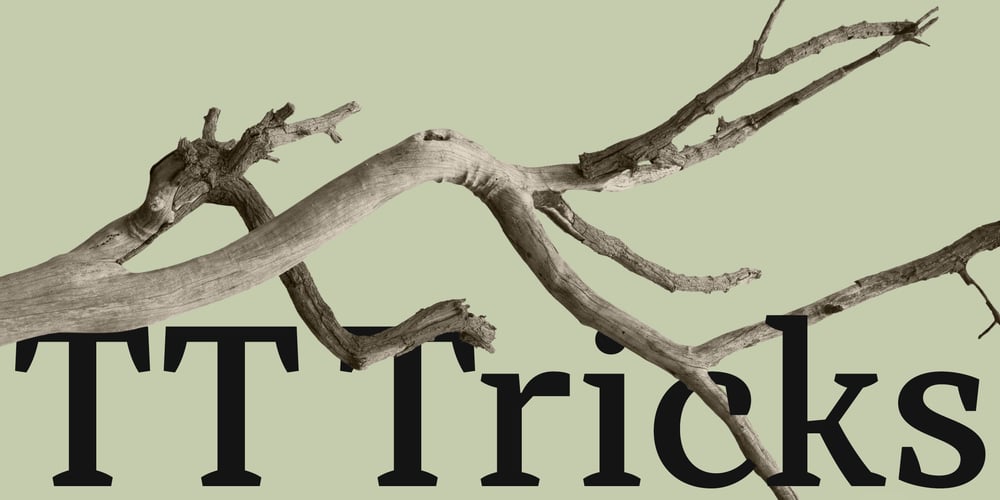
TT Tricks
TT Tricks font
TT Tricks Font Family was designed by Marina Khodak, TypeType Team, Toma Streltsova, Anastasia Pogorelova and published by TypeType. TT Tricks contains 20 styles and family package options. Introducing TT Tricks, version 2.0! We improved this modest serif by amplifying its character set, adding more supported languages, new OpenType features, and variable fonts, and enhancing its visual and technical characteristics. TT Tricks is a modern text serif with a design reflecting the style of Transitional serifs. This font has a calm, elegant, and moderately stern character. It stands out for its relatively low stroke contrast, large serifs, narrowed proportions, and slightly squared forms of round characters. All these visual aspects give the font a distinctly formal tone. After the update, the font became calmer and less expressive, which made it more suitable for running text. Consequently, its application range has expanded. Besides, we introduced 11 new stylistic sets and two variable fonts with a weight variation axis: one for roman styles and the other for italics.The 2.000 version also acquired new font styles: Thin, Thin Italic, ExtraLight, ExtraLight Italic, Medium, Medium Italic. We refined all contours, modified the form of serifs, and redesigned italic font styles. The typeface now has 12 more OpenType features and more supported languages, including Cyrillic-based ones. We improved kerning and enhanced hinting. The character set was significantly expanded. In particular, we completed the extended Cyrillic character set, amplified the Latin one, added more basic currency symbols, and implemented fractions, numerators, and denominators. TT Tricks is a genuine classic: it looks modest but highly relevant. Due to this appearance, the font has an extensive application range. TT Tricks unveils a totally different potential depending on the context in which it is used. It has excellent readability in small point sizes and exhibits expressive details in large point sizes, looking very aesthetic. The updated TT Tricks includes:20 font styles: 9 roman, 9 italic, and 2 variable fonts;866 characters in roman font styles and 858 characters in italic font styles;29 OpenType features;230+ languages support. TT Tricks is a businesswoman of the serif world: determined, modern, and elegant!